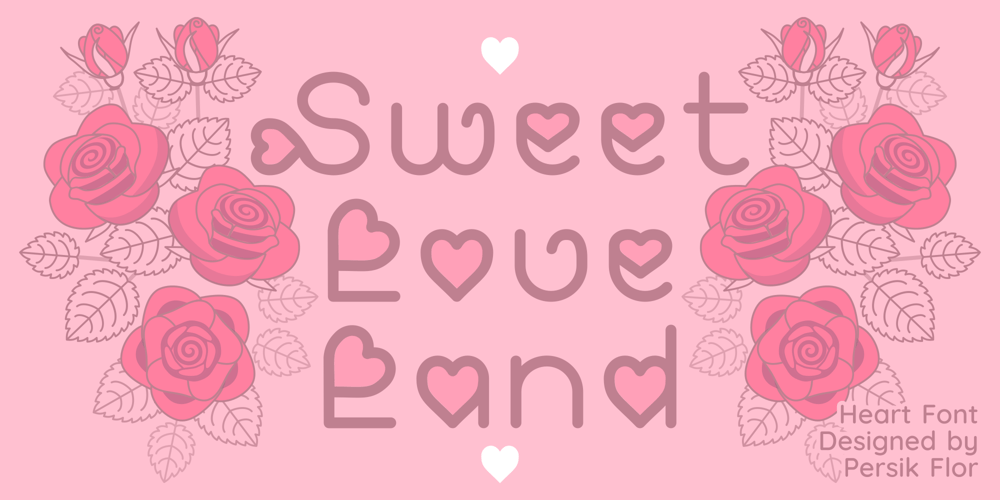
Sweet Love Land Font Family was designed by Persik Flor and published by Persik Flor. Sweet Love Land contains 4 styles and family package options. Sweet Love Land is a romantic imaginary land, abundant with sweet foods. This is the conceptual background of this heart themed font family.Sweet Love Land font family is composed of heart shapes and geometric strokes, achieving a romantic and tidy aesthetic. The font characters are drawn with a round tip tool, and many font characters have rounded strokes, achieving a soft aesthetic.Sweet Love Land is designed for paragraph texts, making it appropriate for diverse applications, such as in video games, comics, art, weddings, love day celebrations, letters, notes, gifts, bouquets, greeting cards and sweet foods.Thank you for exploring the enchanting world of Sweet Love Land. My best wishes.Persik Flor.